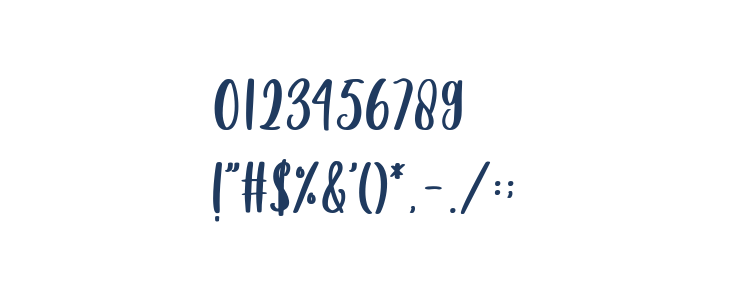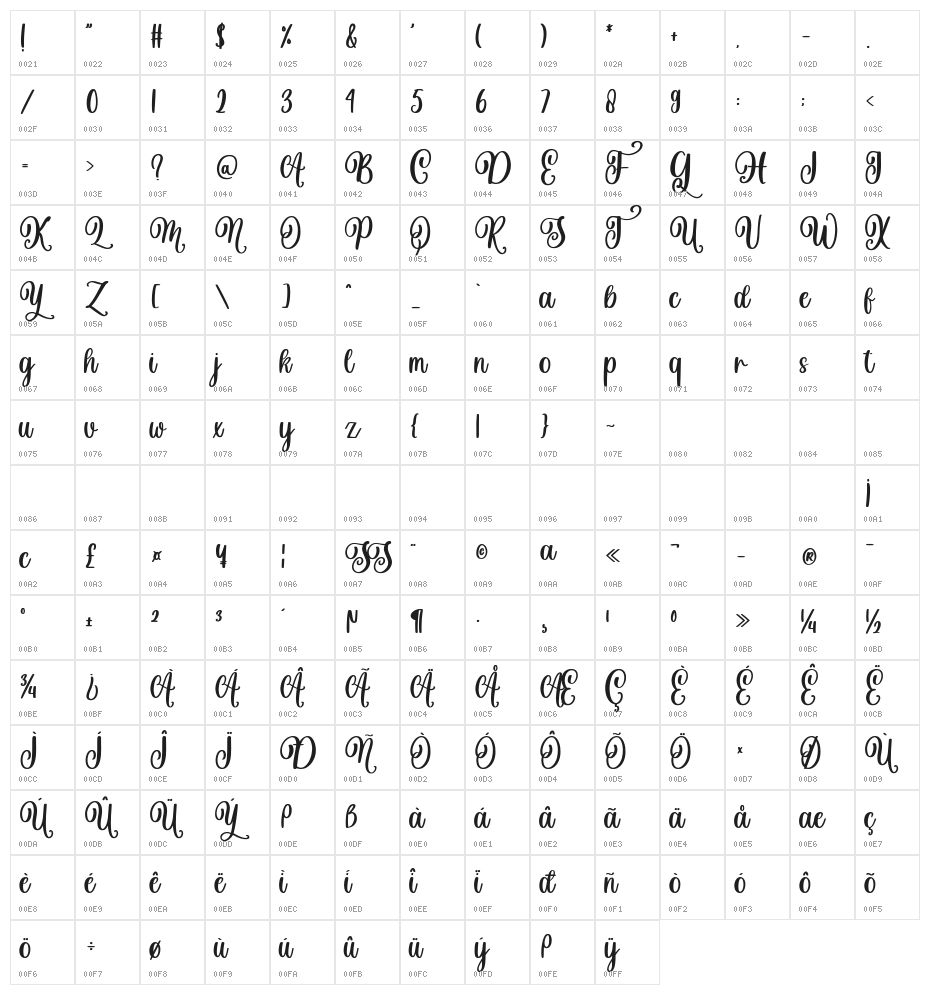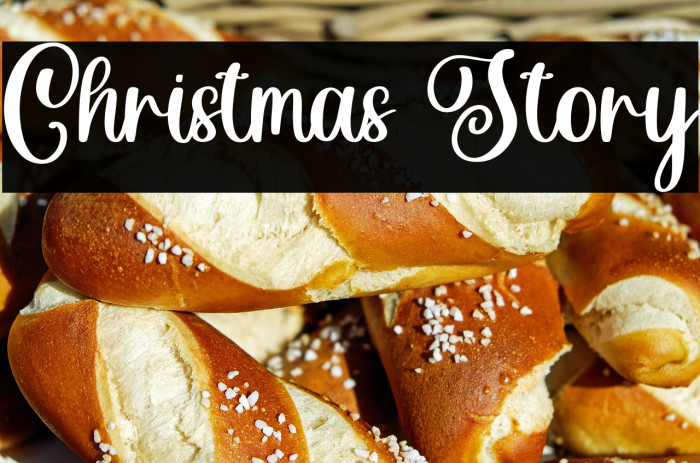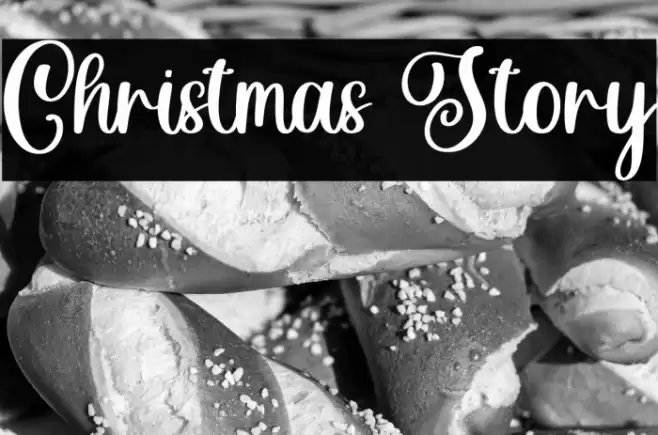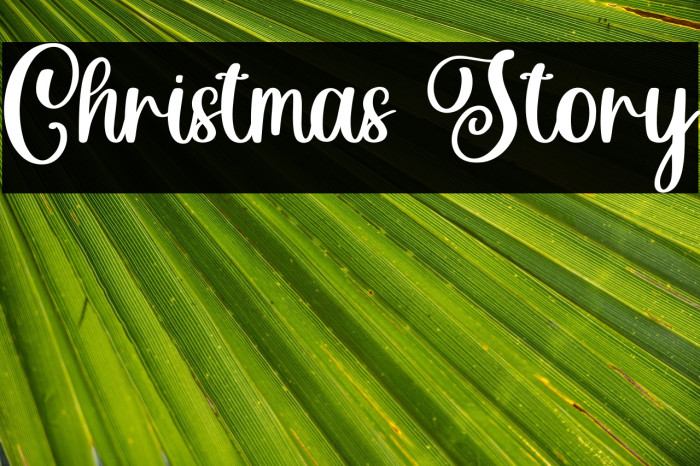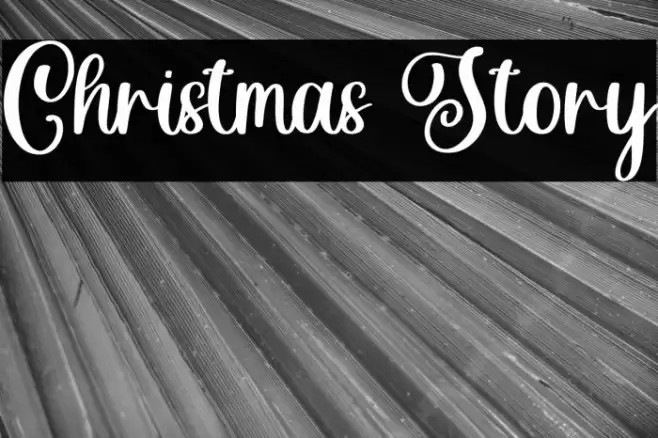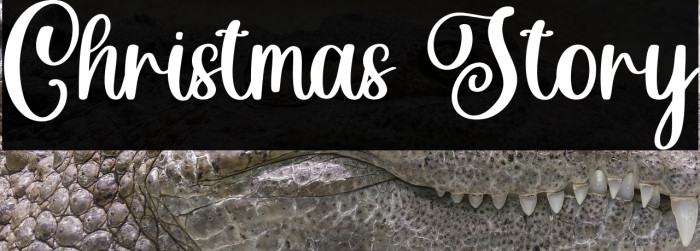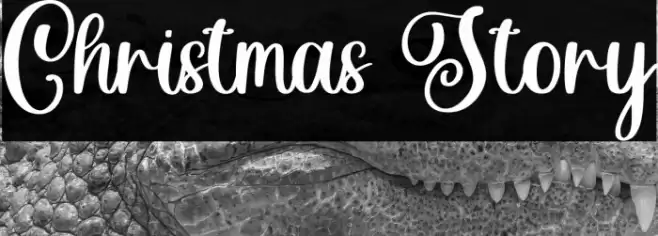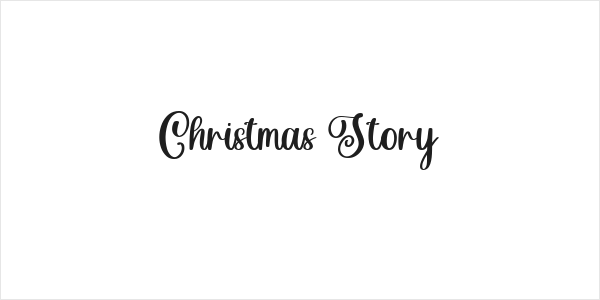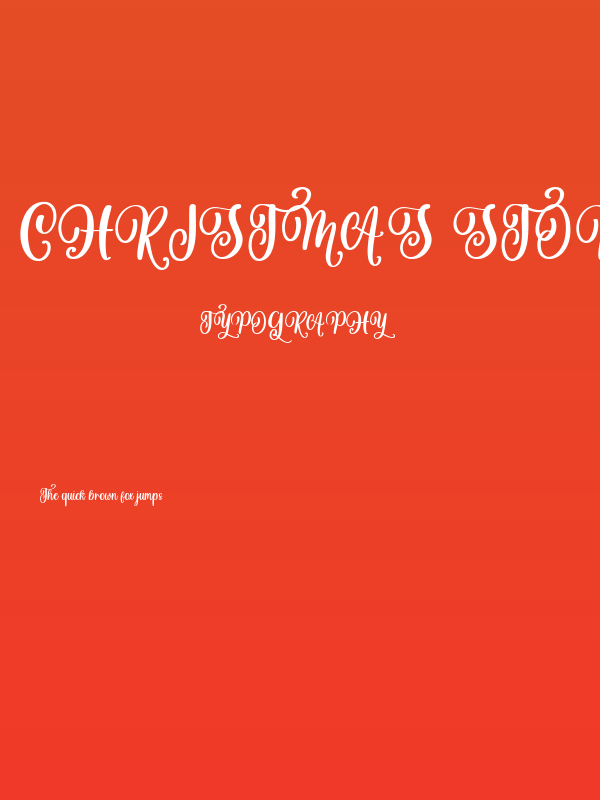
Christmas Story Font
Christmas Story Description
This font features a playful and elegant script style, characterized by its flowing, cursive letters with a whimsical flair. The uppercase letters are ornate with decorative swirls, giving them a festive and joyful appearance. The lowercase letters maintain a smooth and consistent flow, enhancing readability while retaining a sense of charm. The numerals are bold and slightly rounded, complementing the overall style. Special characters are creatively designed, adding to the font's versatility. This font is ideal for projects that require a touch of elegance and playfulness, such as holiday-themed designs, invitations, and greeting cards.